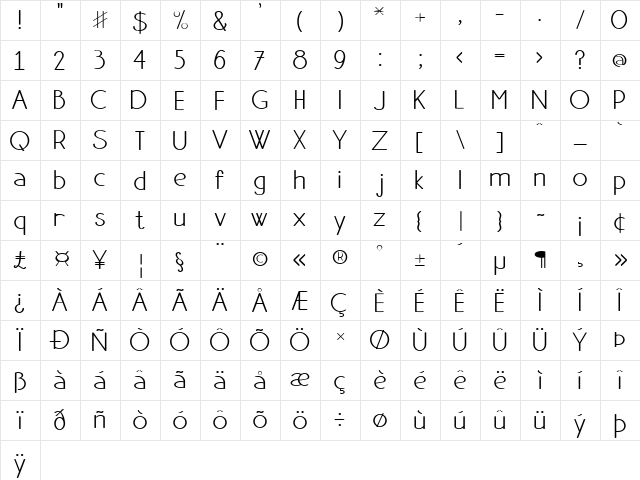
Danae Regular
| Foundry | Marco Ballar |
| Designer | Marco Ballar |
Design Context for Danae Typeface
Danae is a composed and adaptable typeface that performs quietly and consistently across a wide range of design contexts.